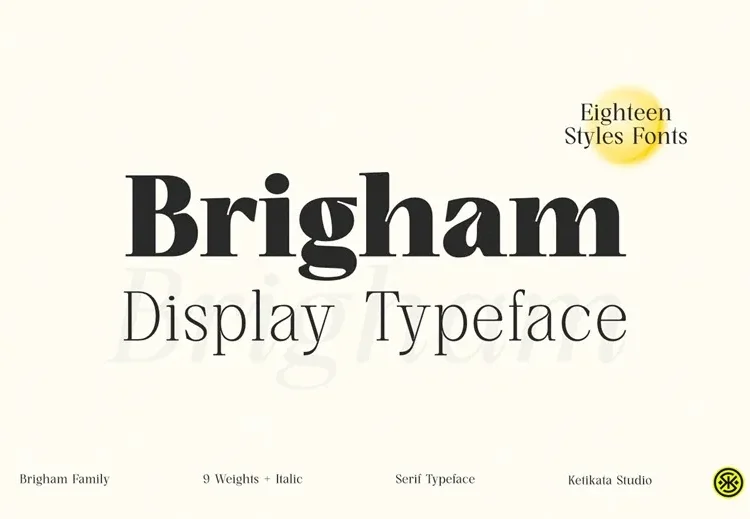
Brigham Font
Meet Brigham, a charming show serif font that captures the essence of 1980s visual appeal, drawing inspiration from classic typefaces like Garamond and Times New Roman. In an era dominated by cinematic visuals, Brigham stands as a perfect homage to this vibrant period, making it an excellent choice for projects that require a touch of nostalgic sophistication.
With its wide and thoughtfully designed letters, Brigham serves as a versatile brand typeface, ideal for headlines, film titles, YouTube reels, advertisements, and posters. Its unique style enhances your visual storytelling, allowing you to evoke nostalgia while simultaneously showcasing modern professionalism. Whether you’re crafting cinematic narratives or designing eye-catching promotional materials, Brigham is ready to elevate your creative endeavors.
This font not only brings a sense of history to your projects but also offers the flexibility needed for a range of applications. From print to digital media, Brigham seamlessly integrates into any design, ensuring your message resonates with elegance and flair.